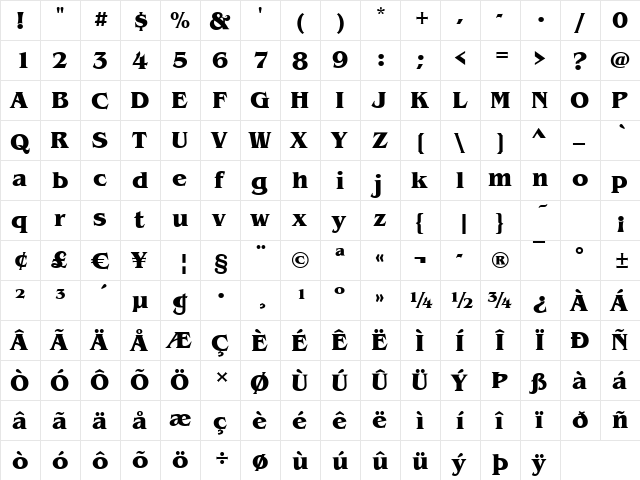
Benjamin-Bold Regular
Design Context for Benjamin-Bold Typeface
Benjamin-Bold takes a measured approach to typography — its balanced proportions and neutral character make it a reliable workhorse for both digital and print work. Its bold stroke weight gives it real presence on the page.